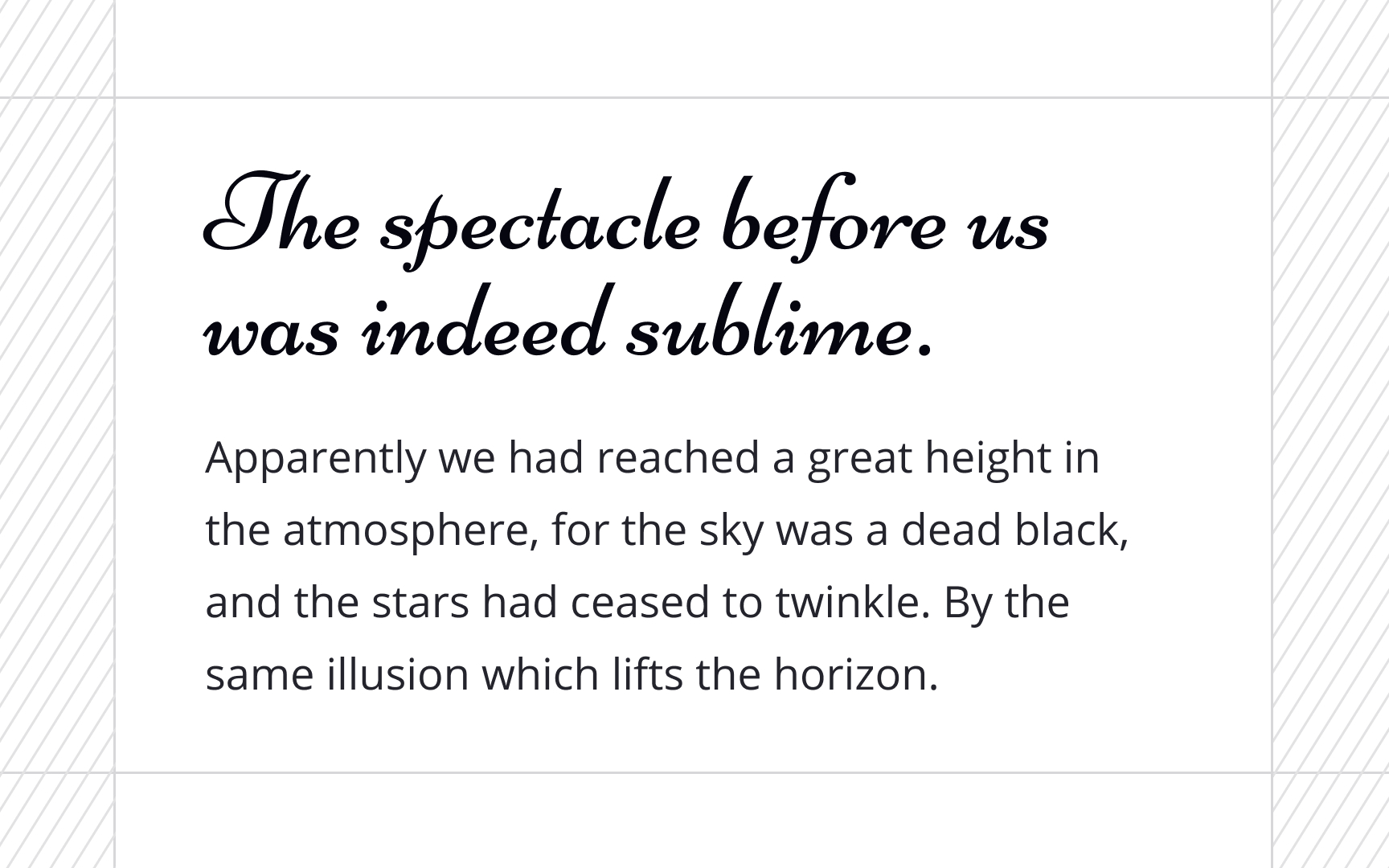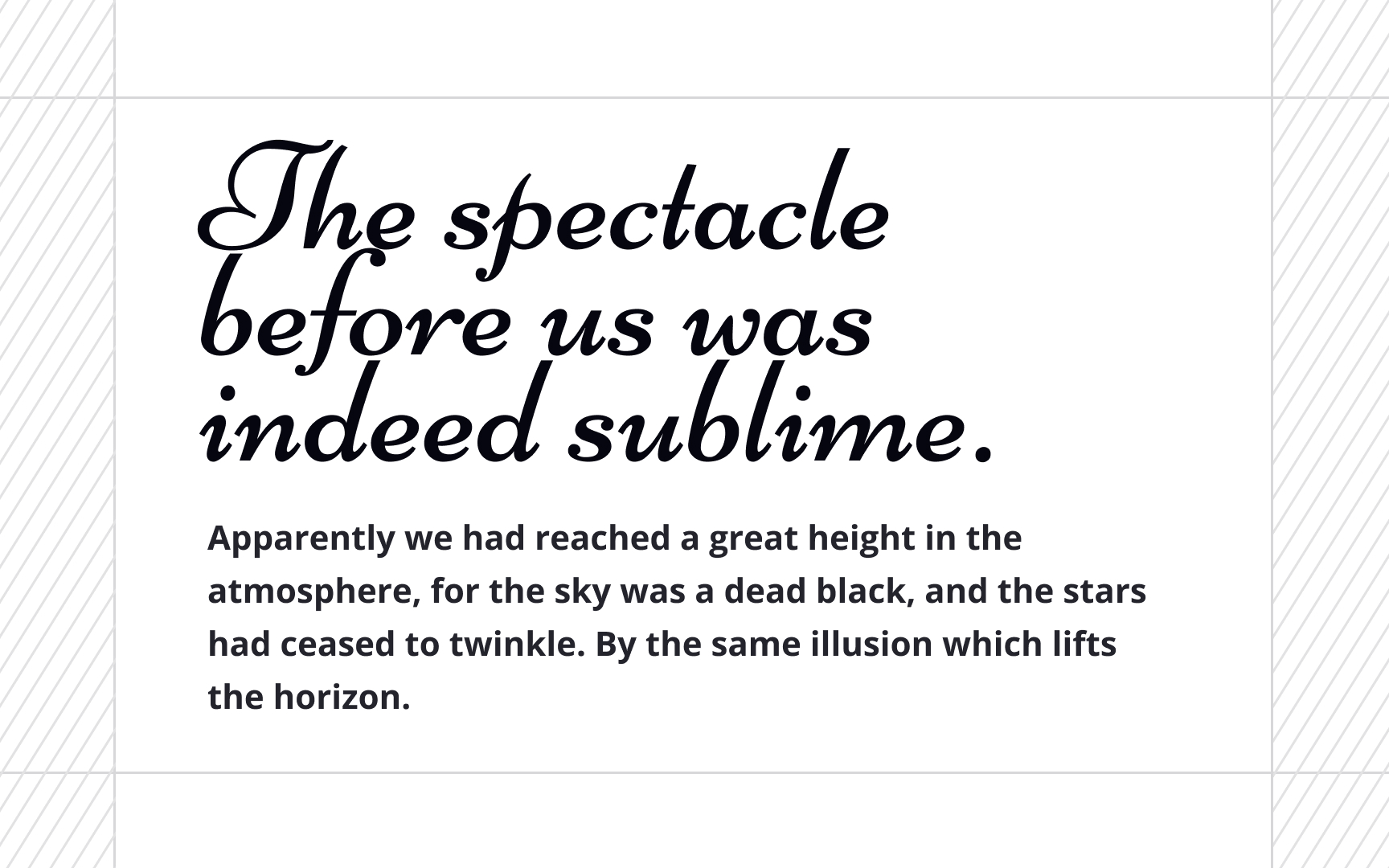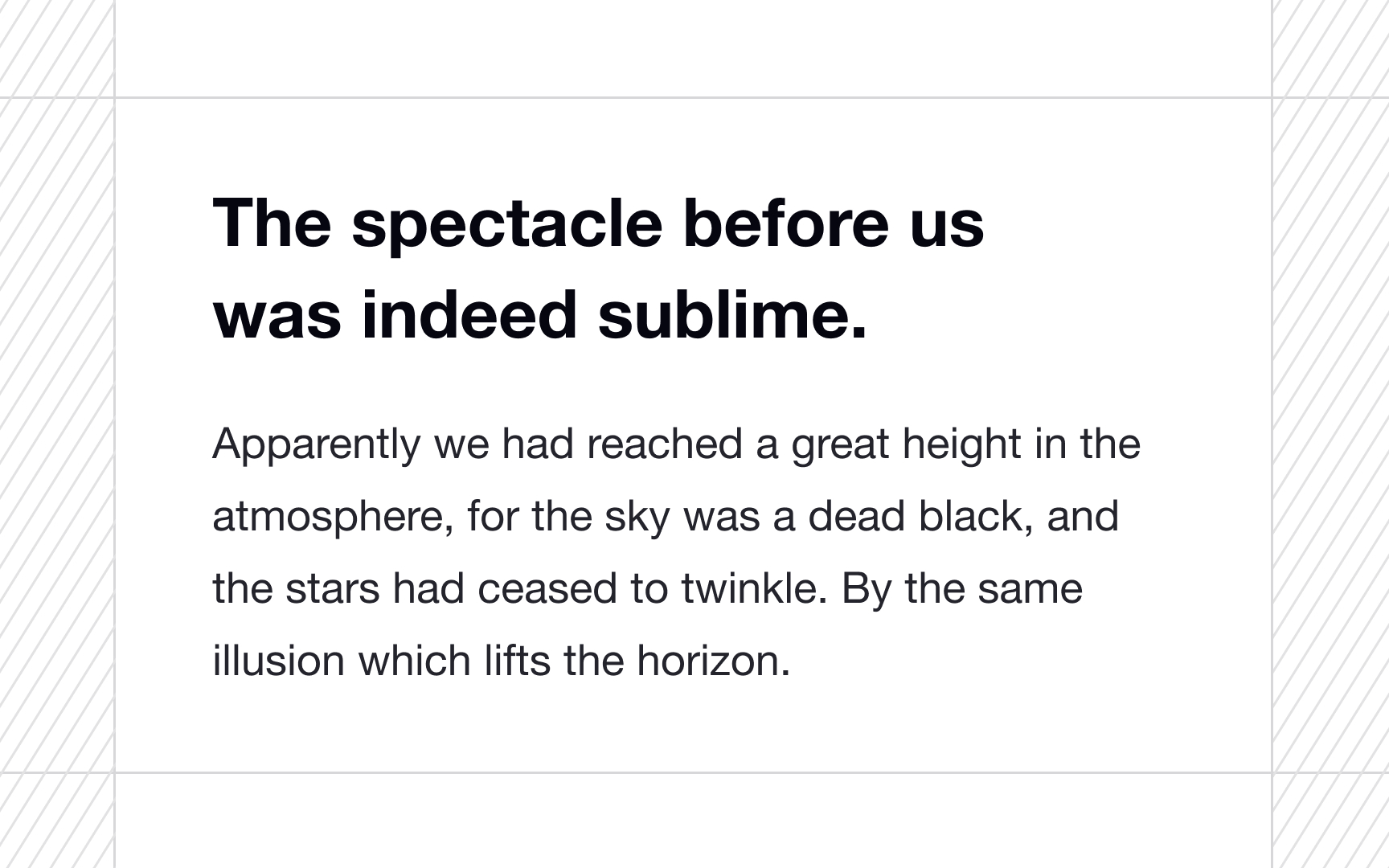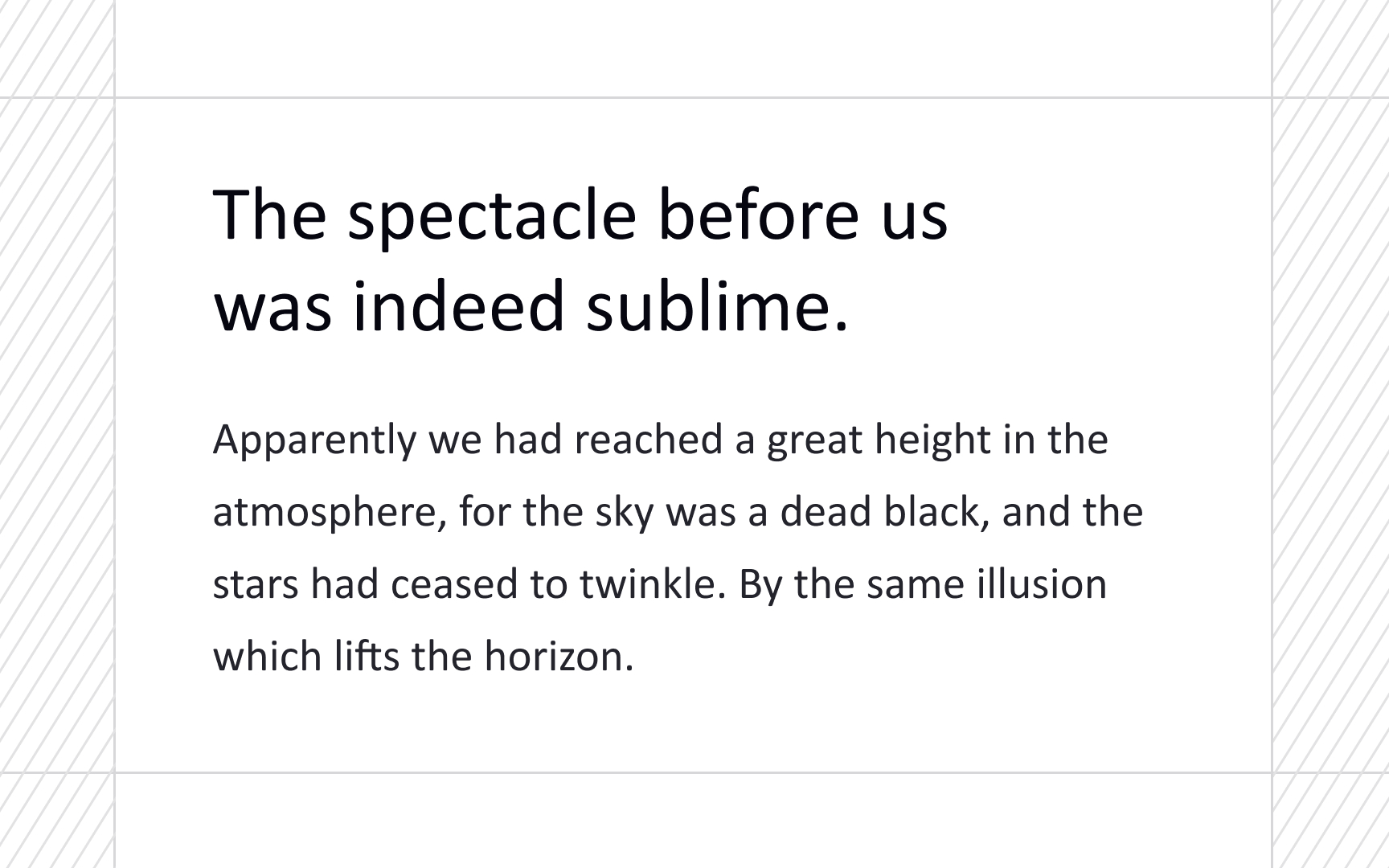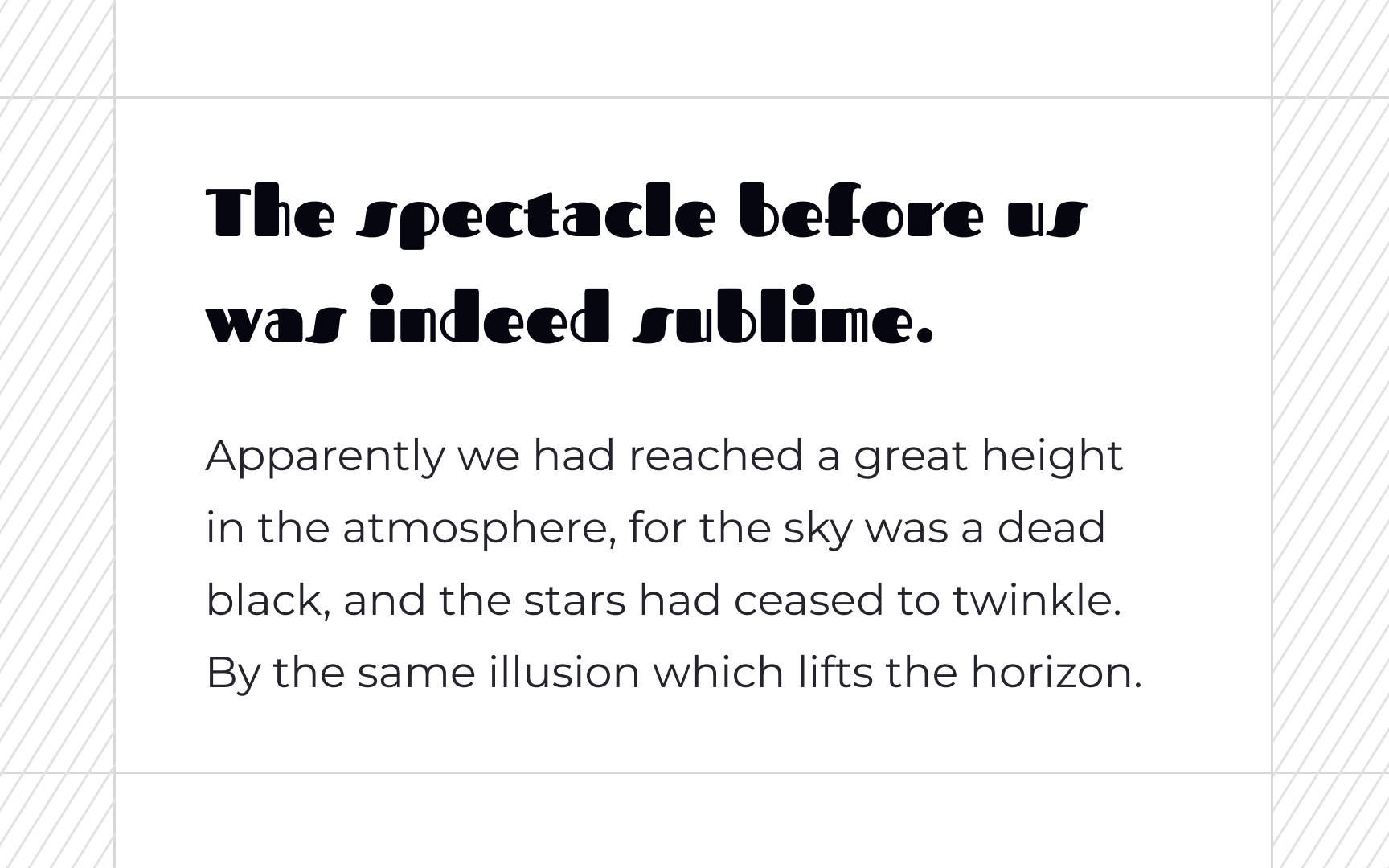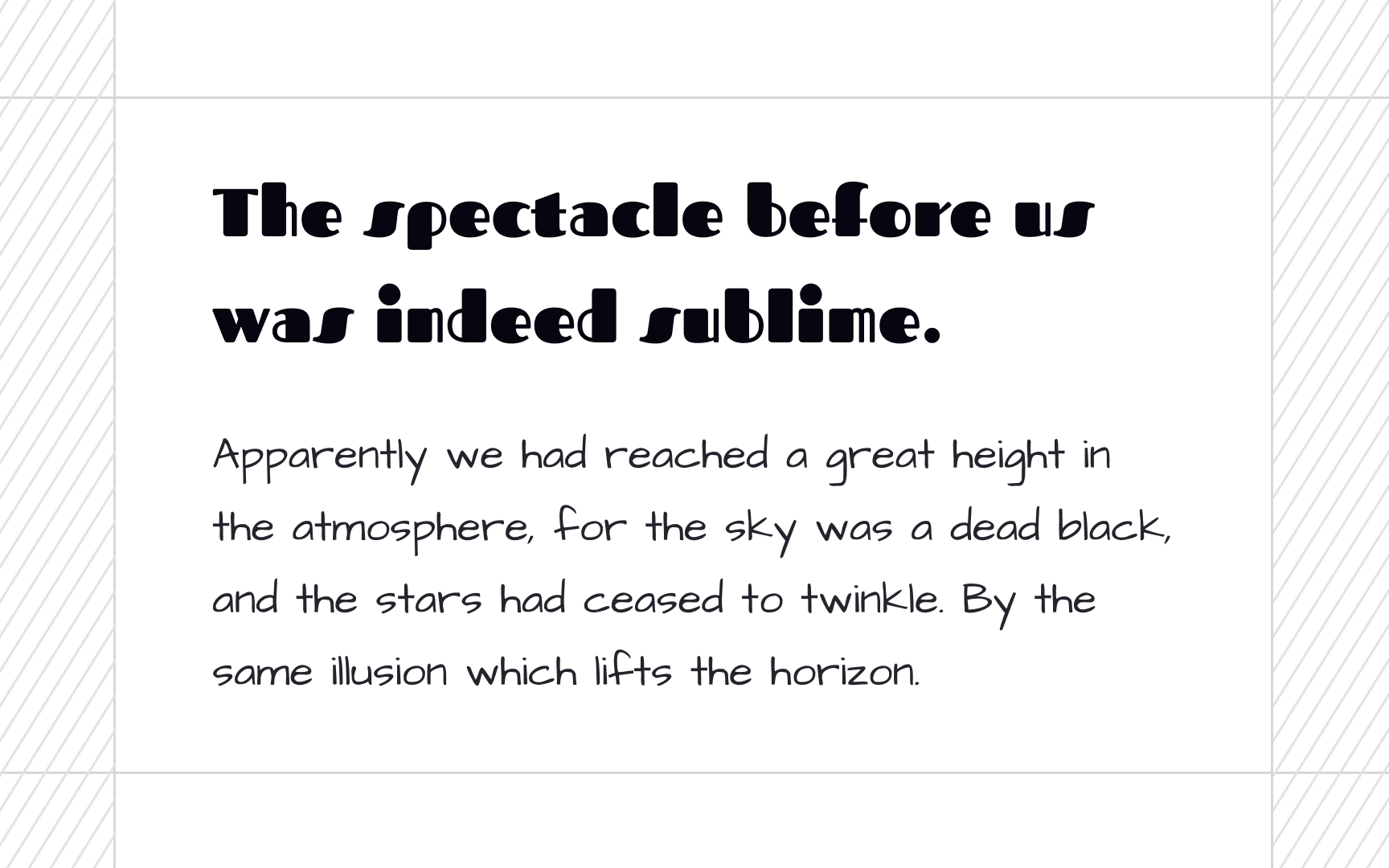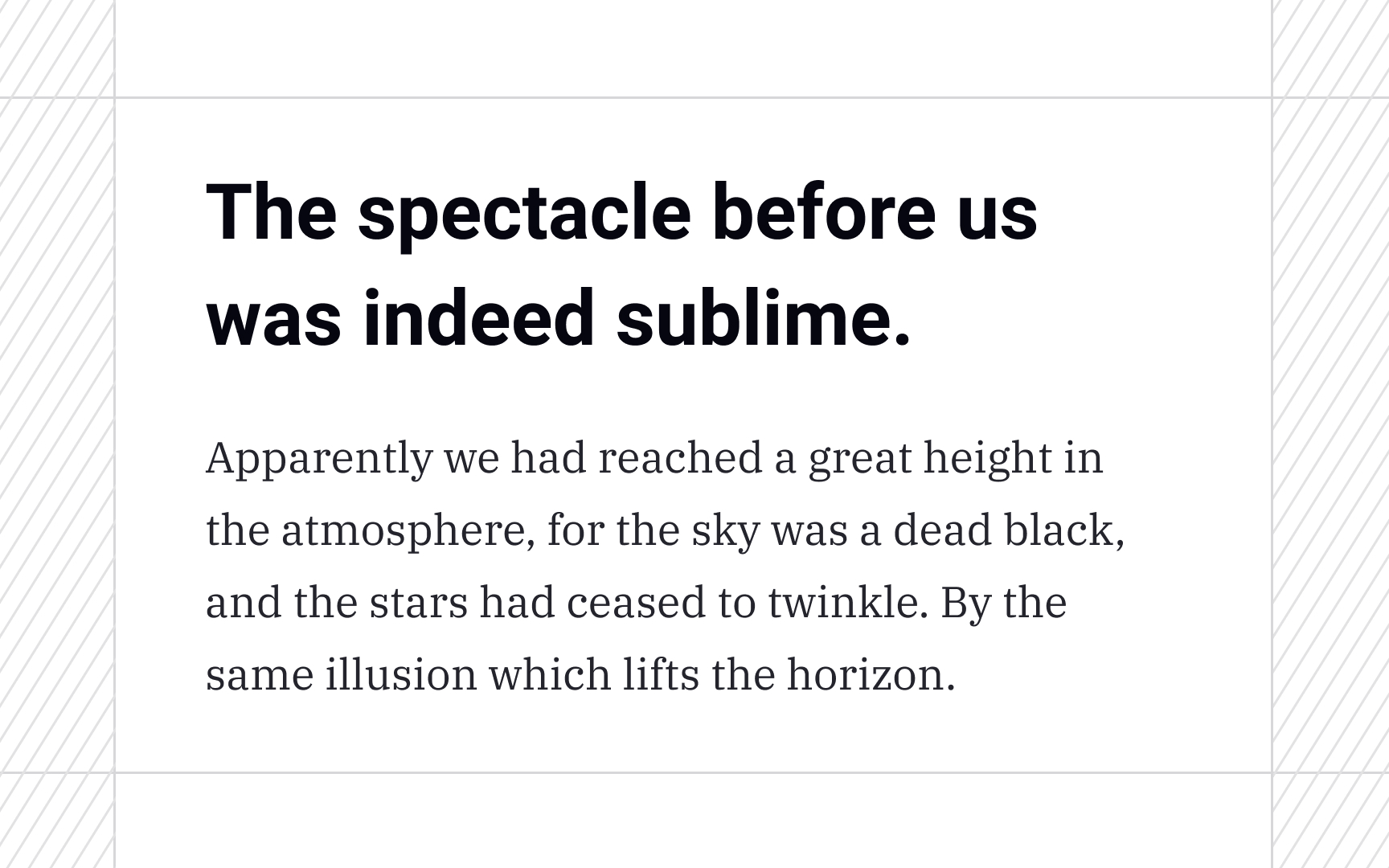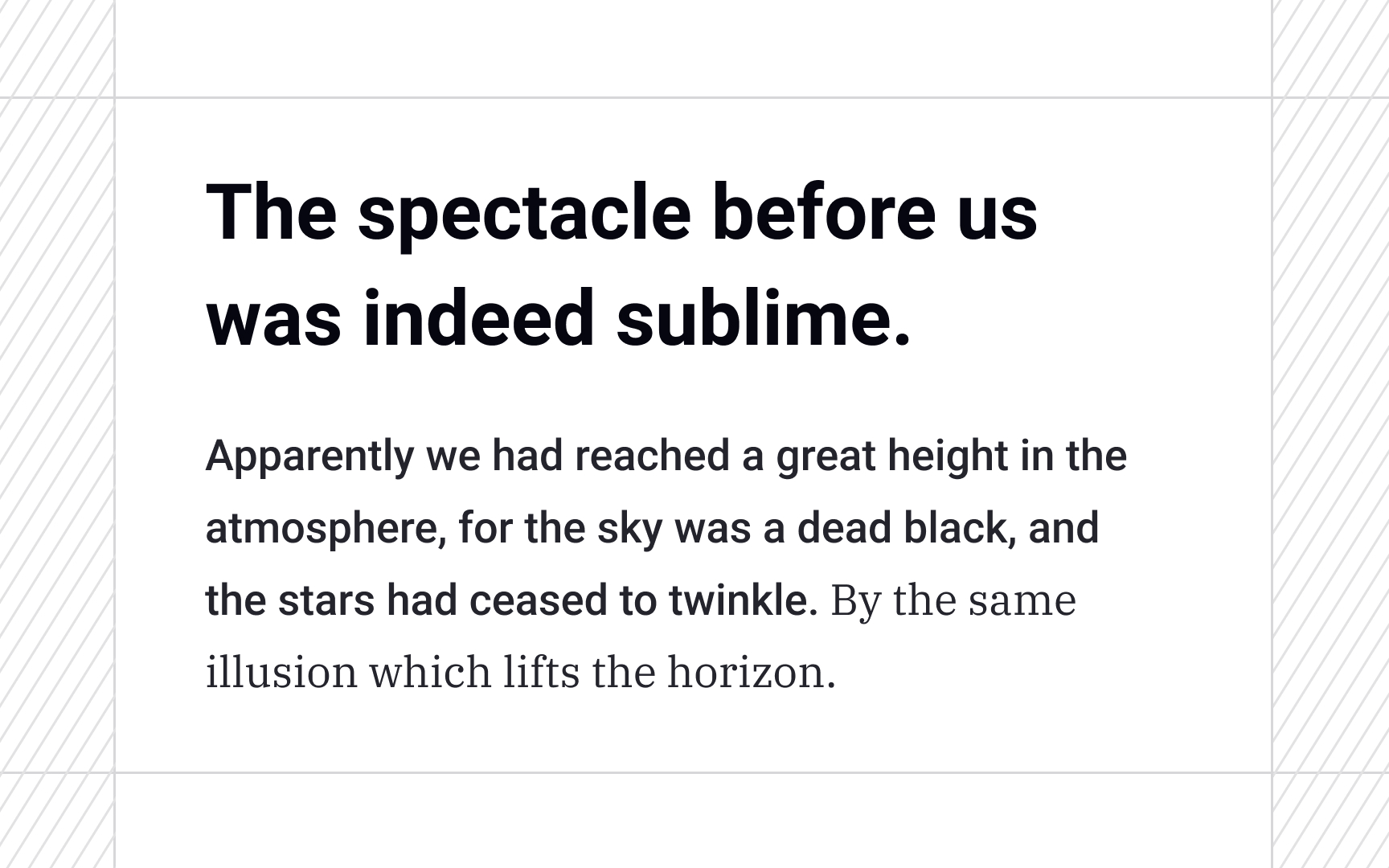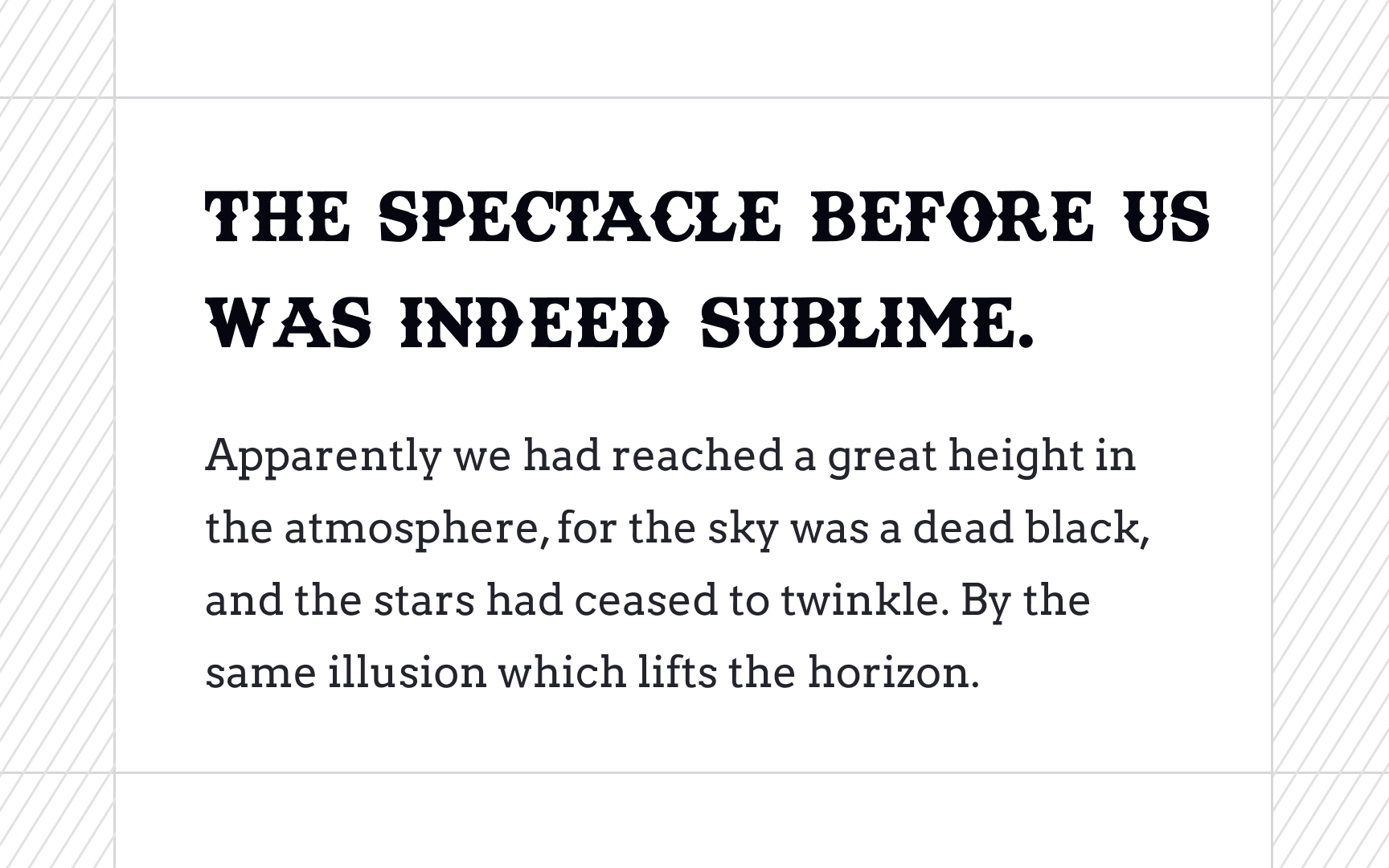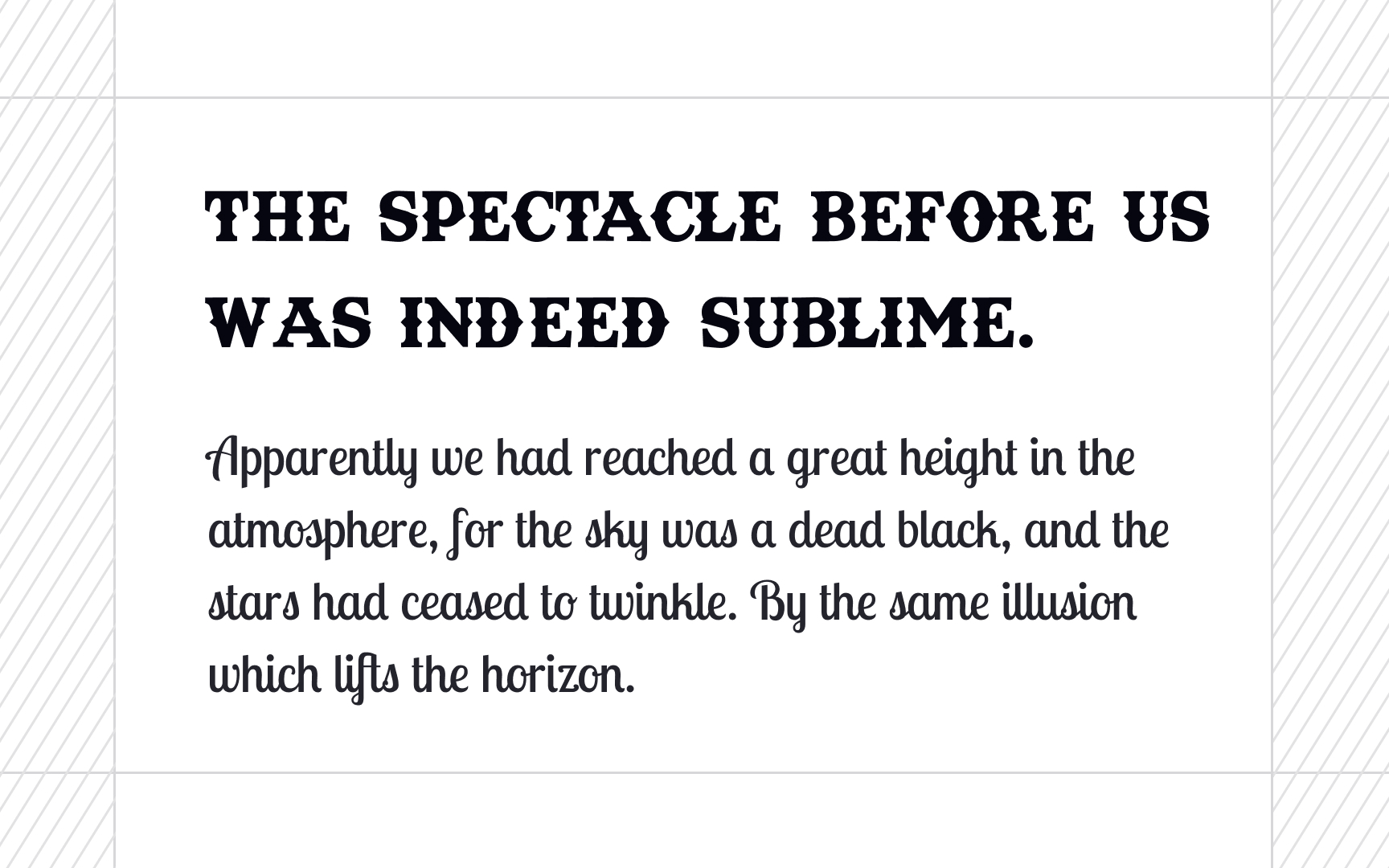
Pairing Fonts
Explore various methods to discover the perfect combination of fonts for your designs
Finding the perfect font combination for your designs can be a challenging task. With a multitude of options available, you'll need to consider various factors such as font moods, styles, and hierarchy before making a decision. Fonts that are too similar may result in a lack of visual interest, while fonts that are too dissimilar can create confusion and discordance. The key is to learn how to create combinations that complement each other while maintaining a readable and cohesive design overall.
Serif
On the other hand, sans-serif fonts, as the name suggests, lack these decorative lines or strokes. They offer a clean and modern aesthetic, often associated with simplicity, minimalism, and a contemporary feel. Sans-serif fonts like Arial, Helvetica, or Gotham are widely used for headlines, subheadings, and other display purposes where a bold and impactful appearance is desired.[1]
When combining serif and sans-serif fonts, the contrast between the two styles can create visual interest and establish a clear hierarchy within your design. Using a serif font for headings and a sans-serif font for body text can help differentiate between different levels of information, making it easier for readers to navigate and comprehend the content. The sharpness and simplicity of sans-serif fonts can provide a complementary backdrop that allows the serif font to stand out and command attention.
Pro Tip: Look for complementary attributes of the chosen serif and sans-serif fonts, such as similar x-height, overall proportions, or letterform shapes to ensure a cohesive and visually pleasing combination.
Varying font sizes can be a highly effective way to guide the reader's eye and emphasize important elements within your design. By strategically increasing the size of certain
In
To further enhance the
There are two main approaches you can take when playing with font weight — matching different typefaces or utilizing different weights within the same typeface. Matching different typefaces with contrasting weights can create a striking visual contrast. For example, pairing a bold and heavy sans-serif font with a lighter and more delicate serif font can generate a dynamic interplay between the two styles.
This combination can be particularly effective in creating a clear visual hierarchy, with the bold font commanding attention for headings and important elements, while the lighter font provides a balanced and readable
Alternatively, using different weights within the same typeface can offer a more cohesive and unified look while still providing contrast. Many typefaces come with a range of weights, such as thin, regular, medium, bold, and black. By utilizing these variations, you can maintain a consistent visual style while emphasizing different levels of information.
The principle of "do one thing and do it well" can be applied to
Each font should have its own purpose and function within the overall composition. This approach allows for clear differentiation between different levels of information and helps guide the reader's attention effectively.
To ensure a harmonious font pairing, limit yourself to fonts that align with the specific mood or personality you're aiming to convey. If your design requires a serious and authoritative tone, opt for fonts with a clean and structured appearance, such as classic serifs or modern sans-serifs. On the other hand, if you're aiming for a playful and whimsical vibe, consider selecting fonts with rounded letterforms, decorative elements, or handwritten styles.
By choosing fonts that share a similar mood, you create a consistent visual language that enhances the overall cohesiveness of your design. The fonts work in harmony to reinforce the intended message and evoke the desired emotional response from your audience.
When one font carries a strong personality, it's best to pair it with a more neutral counterpart to achieve a harmonious and balanced design. Combining two
By selecting a font with a distinct personality and pairing it with a more neutral font, you create a complementary relationship where each font plays a specific role. The font with a strong personality becomes the focal point, grabbing the viewer's attention and conveying the intended mood or style. Meanwhile, the neutral font acts as a supporting element, providing balance and allowing the primary font to shine.
A neutral font doesn't necessarily mean dull or boring. It simply refers to a font that is more versatile and adaptable, with less pronounced stylistic elements or unique characteristics. These fonts often have a more understated design, allowing them to work well in various contexts and alongside fonts with stronger personalities.
Fonts with similar proportions have a consistent relationship between the width and height of their letterforms, creating a sense of coherence when used together. This consistency helps maintain a balanced and harmonious
Using a single
By utilizing
Finding the right balance in the number of typefaces used in a design is crucial for maintaining visual coherence and avoiding clutter. While a single
By using two complementary typefaces, you can create
If a third typeface is considered, it should have a distinct purpose or role, such as for special accents, pull quotes, or specific design elements. This additional typeface should be used sparingly and not overwhelm the design.
Certain typefaces are better suited for specific roles based on their design characteristics and